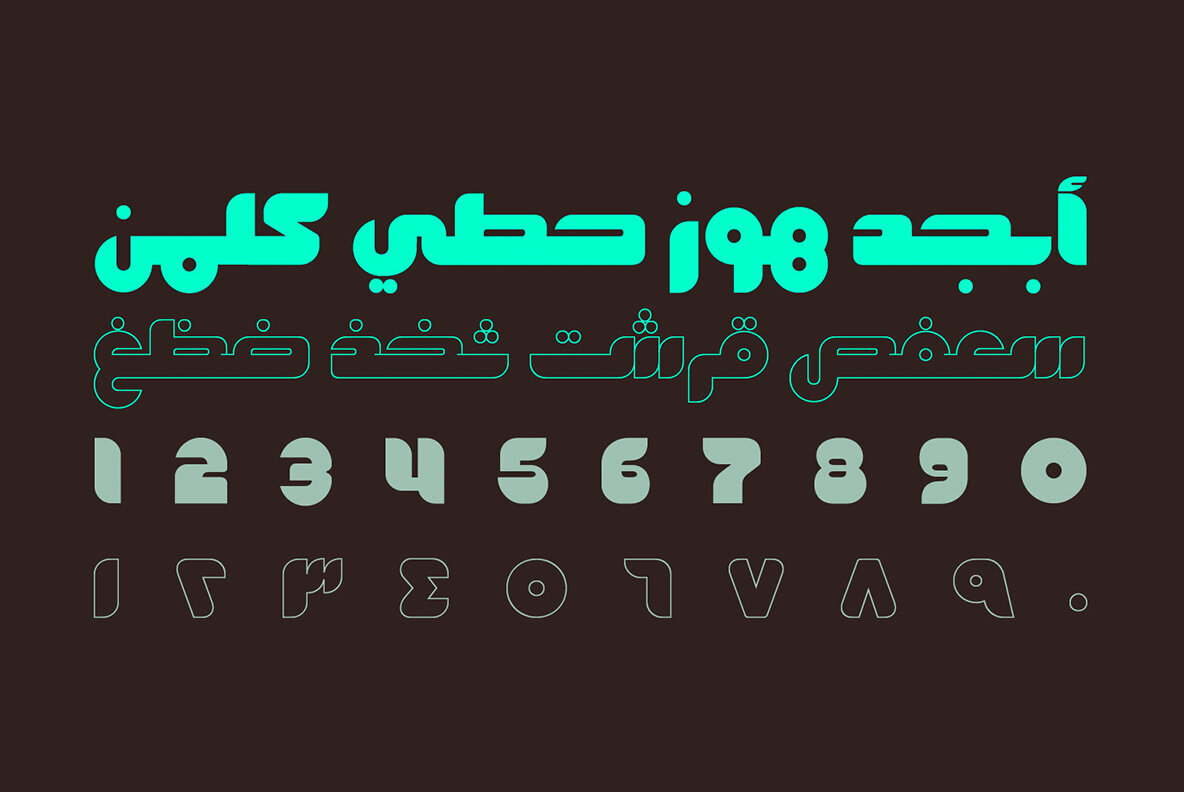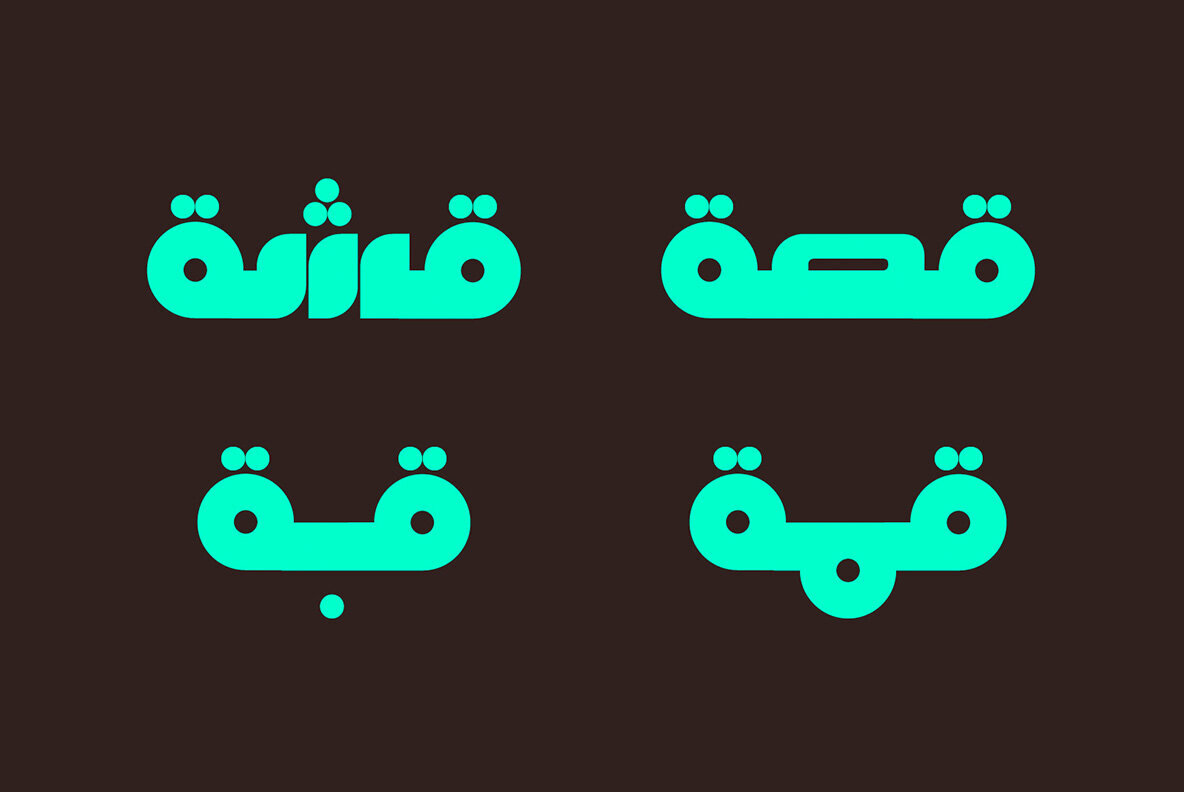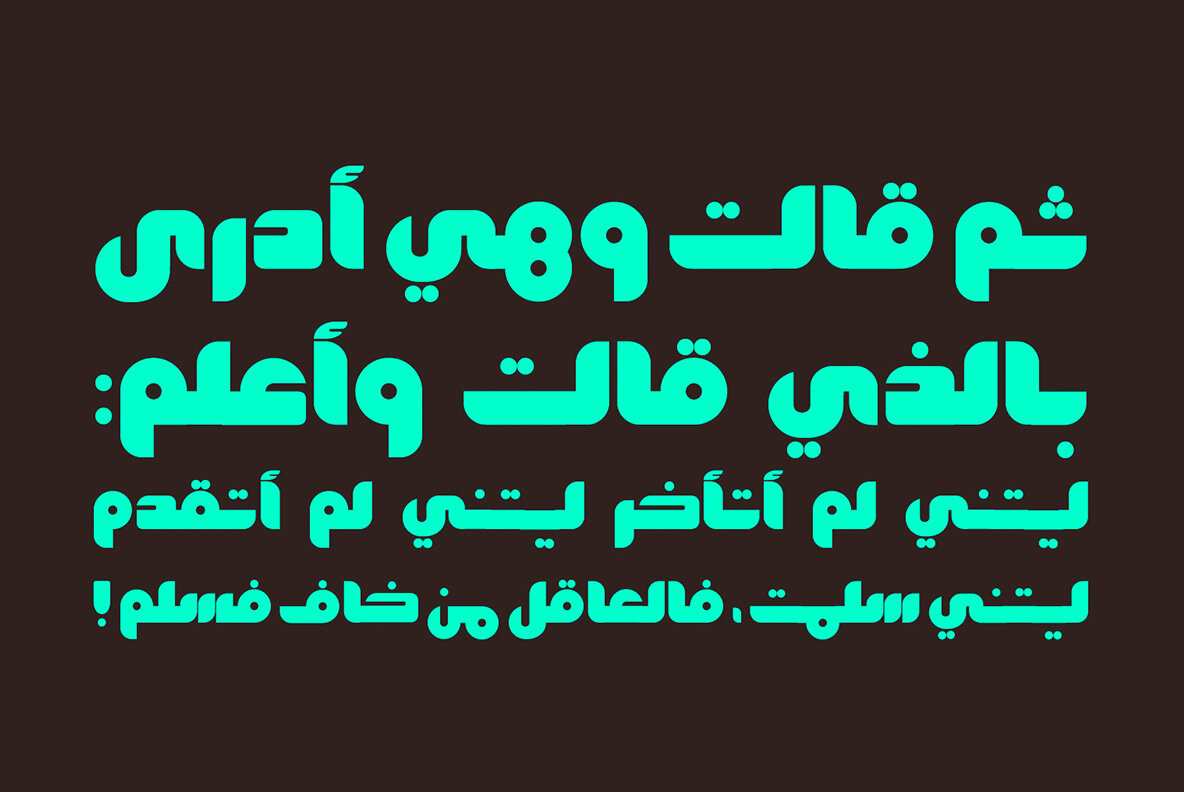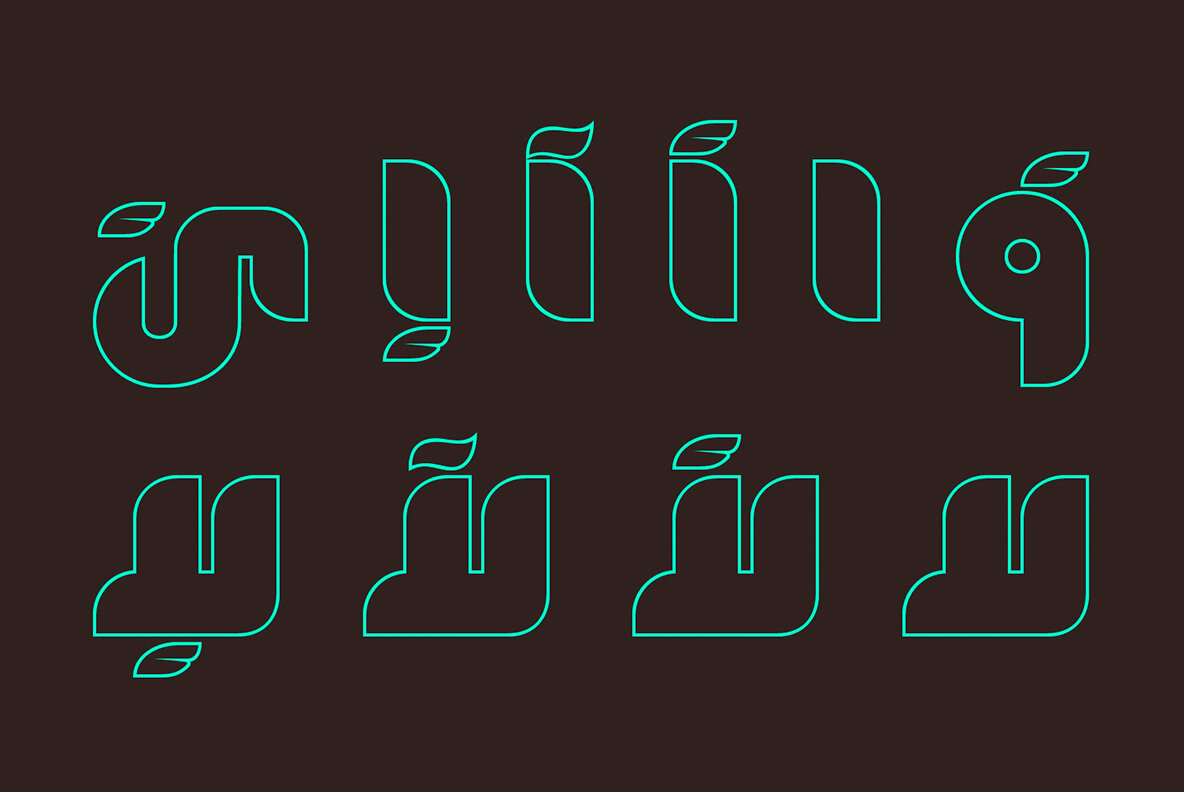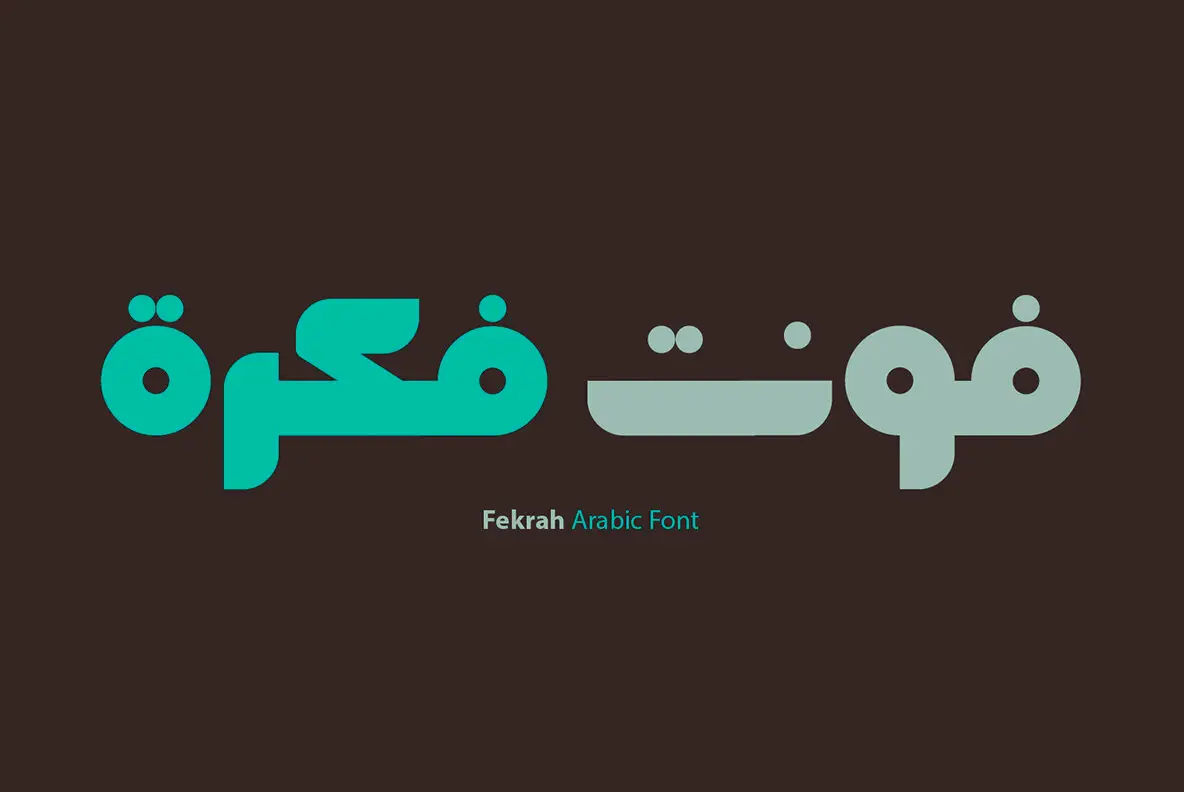
Fekrah Font
Fekrah Regular
Fekrah Outlined
Fekrah is the Arabic word for Idea. Fekrah is a contemporary Arabic font that suits visual identities and modern design projects. It consists of two styles (Opaque and Outlined), and it supports Windows, Mac and mobile applications.